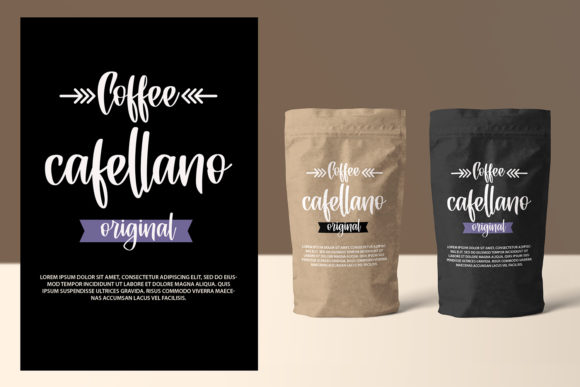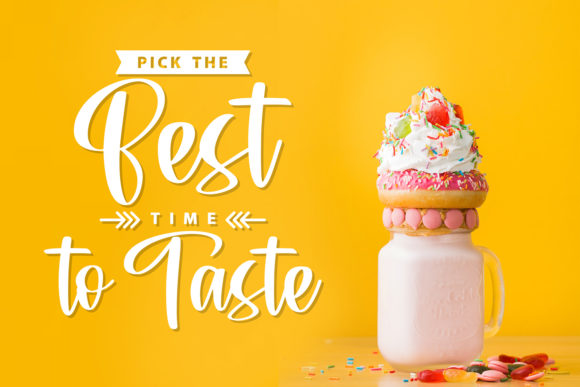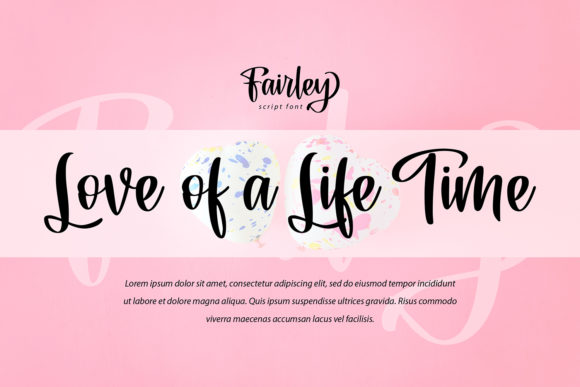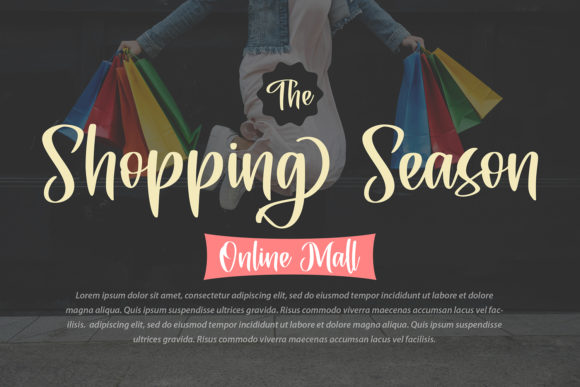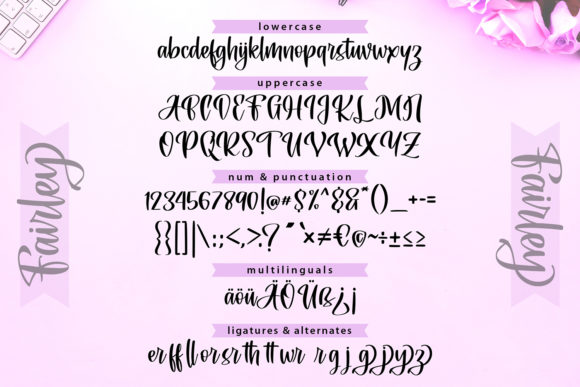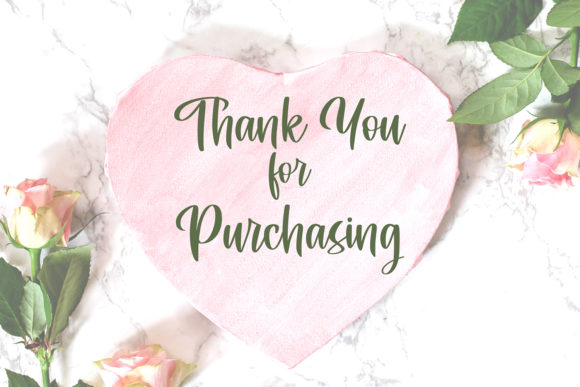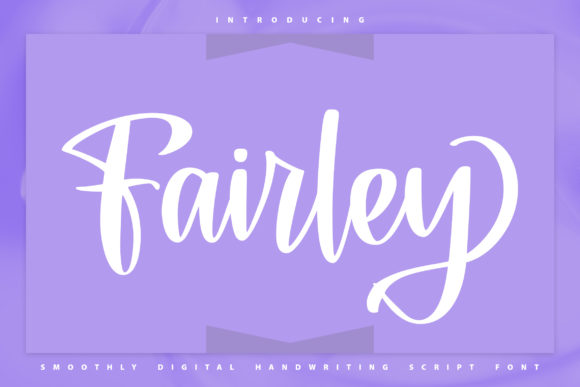
Discover the Elegance of Fairley Font: Elevate Your Designs to New Heights
Are you on the hunt for a font that exudes sophistication, elegance, and a touch of modern flair? Look no further than the Fairley Font. This exquisite handwritten font is masterfully designed to capture the hearts of designers and crafters alike, making it a true favorite in the world of typography.
The Perfect Blend of Classy and Contemporary
Fairley Font strikes the perfect balance between classic calligraphic influences and contemporary design elements. Its unique blend of traditional and modern styles makes it an incredibly versatile font, suitable for a wide range of projects, from wedding invitations and branding materials to packaging and digital media.
With Fairley Font, you can add a touch of luxury and sophistication to your designs, effortlessly elevating them to new heights. Its elegant, flowing lines and carefully crafted letterforms make it a joy to work with, allowing you to create stunning visual content that leaves a lasting impression.
What Makes Fairley Font So Special?
So, what sets Fairley Font apart from other fonts in its class? Here are just a few reasons why this font is sure to become a staple in your design toolkit:
• Unique and Elegant Design: Fairley Font boasts a distinctive, handcrafted design that exudes elegance and refinement. Its intricate letterforms and flowing lines make it perfect for creating sophisticated, high-end designs.
• Versatility: Whether you’re working on a wedding invitation, a brand identity project, or a digital marketing campaign, Fairley Font adapts seamlessly to any design style or format.
• Easy to Read: Despite its ornate design, Fairley Font remains highly legible, making it suitable for both headlines and body text.
• Multilingual Support: Fairley Font supports multiple languages, allowing you to create designs for a global audience.
How to Use Fairley Font in Your Designs
• Wedding Invitations: Add a touch of romance and sophistication to your wedding invitations, save-the-dates, and other stationery with Fairley Font.
• Branding and Packaging: Use Fairley Font to create luxurious brand identities, product labels, and packaging that stands out on store shelves.
• Digital Media: Elevate your digital content, including social media graphics, email newsletters, and website headers, with the elegant and modern Fairley Font.
• Signage and Displays: Make a lasting impression with eye-catching signage and display graphics featuring Fairley Font.